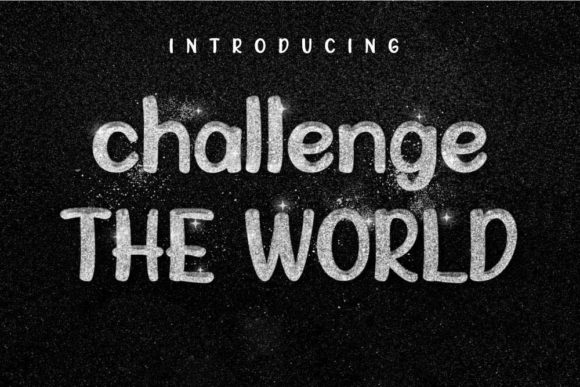
**Challenge the World: The Font That Will Take Your Designs to the Next Level**
Are you ready to take your designs to the next level? Look no further than Challenge the World, the stunning display font that will add a touch of elegance and sophistication to all your creative projects.
**Perfect for Wedding Signs and More**
Whether you're creating personalized wedding signs, eye-catching invitations, or beautiful social media graphics, Challenge the World is the perfect choice. Its versatility and adaptability make it suitable for a wide range of projects, ensuring that your designs always stand out from the crowd.
**Effortless Elegance**
With its simple, sweet, and effortlessly elegant style, Challenge the World will elevate any creation. The font's clean lines and smooth curves add a touch of sophistication to your designs, making them look both professional and captivating.
**A True Asset to Your Design Arsenal**
No matter your design style or skill level, Challenge the World is an incredible asset to your fonts' library. Its versatility and adaptability make it a must-have for any designer looking to create stunning and memorable designs.